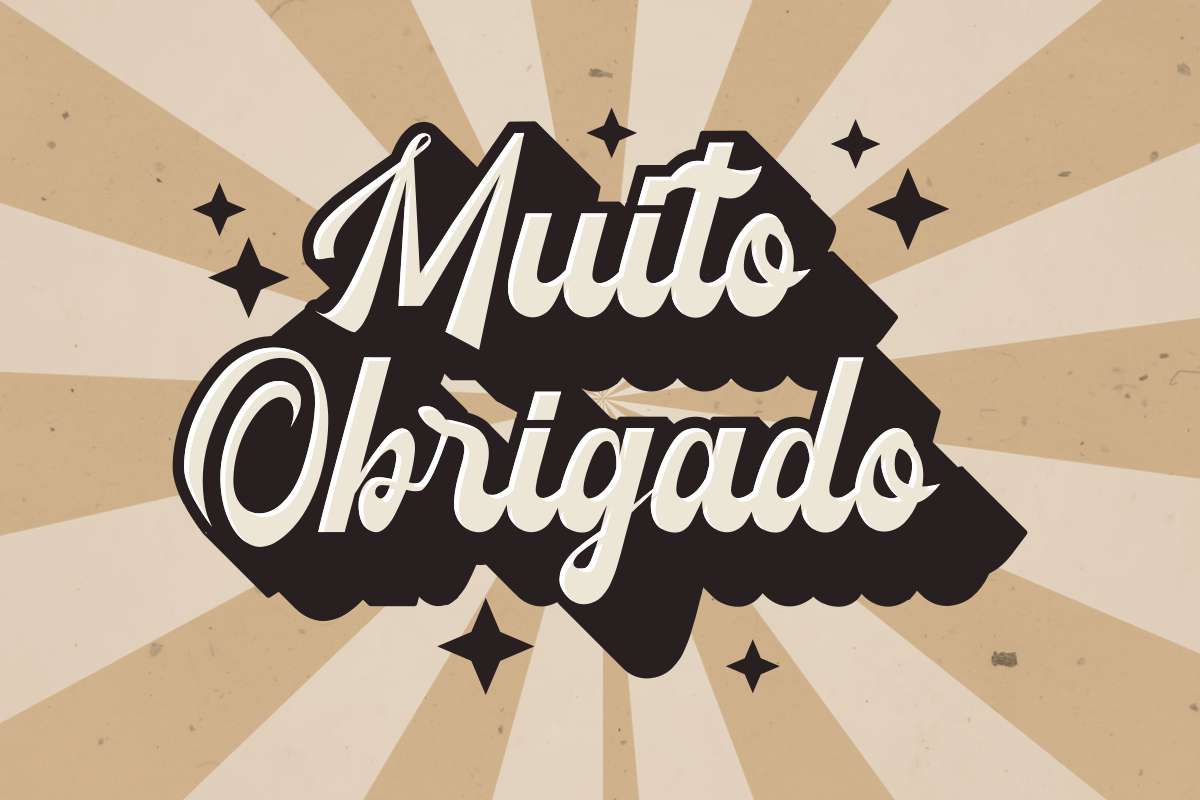
Carbondale Font is a retro brush font made by NoahType. This font will add a personal handwriting look twist to any design project.
This font is crafted carefully in every its single scratch, created to look as close to a natural handwritten script so that it can create the perfect combination on each glyph.